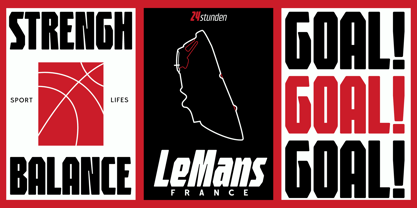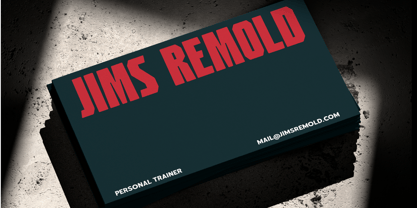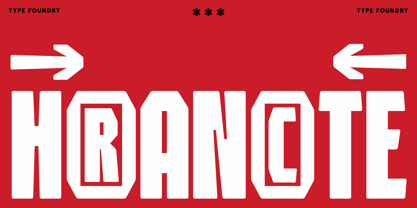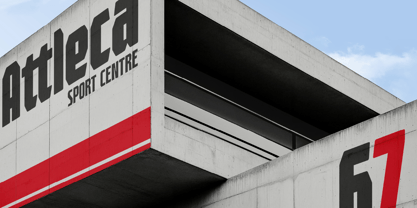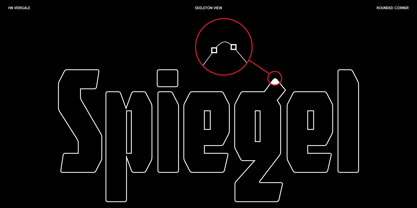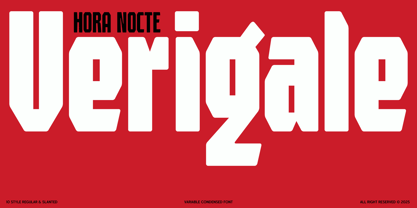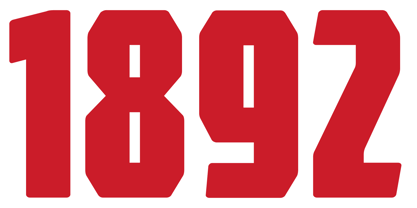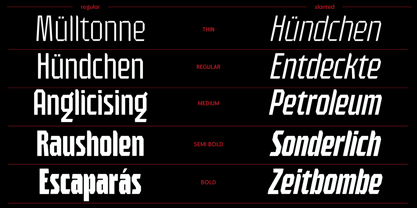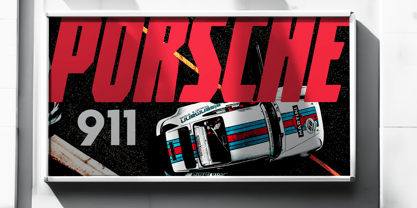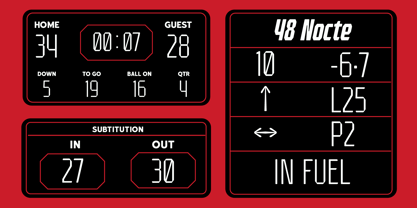
HN Verigale
by Hora Nocte Type Foundry
The HN Verigale Font Family was designed by Hasto Nugroho and published by Hora Nocte Type Foundry. HN Verigale contains 10 styles and family package options.
HN Verigale is a variable, condensed sans-serif typeface with a sporty feel and a distinctive, modern design. Available in both regular and slanted versions, this typeface features rigid geometric structures softened by rounded corners, creating a perfect balance between strength and approachability.   Dynamic appearance makes it ideal for eye-catching headlines, posters, branding, sports-related designs, and editorial layouts. Whether you're crafting a sleek logo or a striking advertisement, HN Verigale delivers a unique and versatile typographic solution.